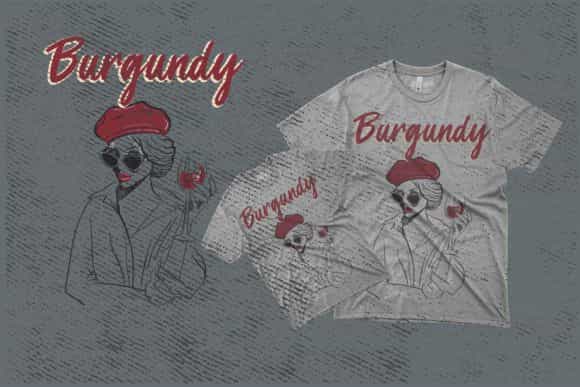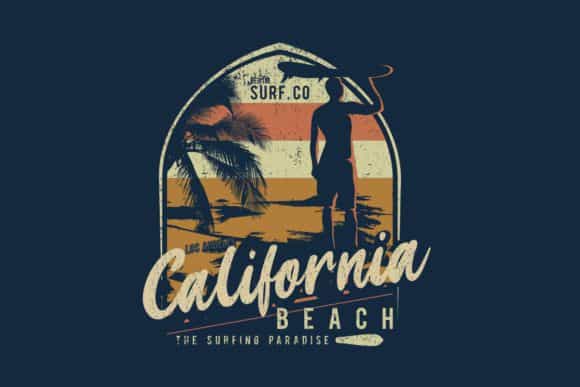
Another part of Cheese Cookies is Split Personalities. It is nostalgic and makes you long for yesteryear. For anyone who feels the need of something vintage-oriented then Cheese Cookies Font might just. Cheese Cookies Font is a stylish hand made script font that features both a varying baseline, rounded line, wooden and neat touch, and also interesting features.